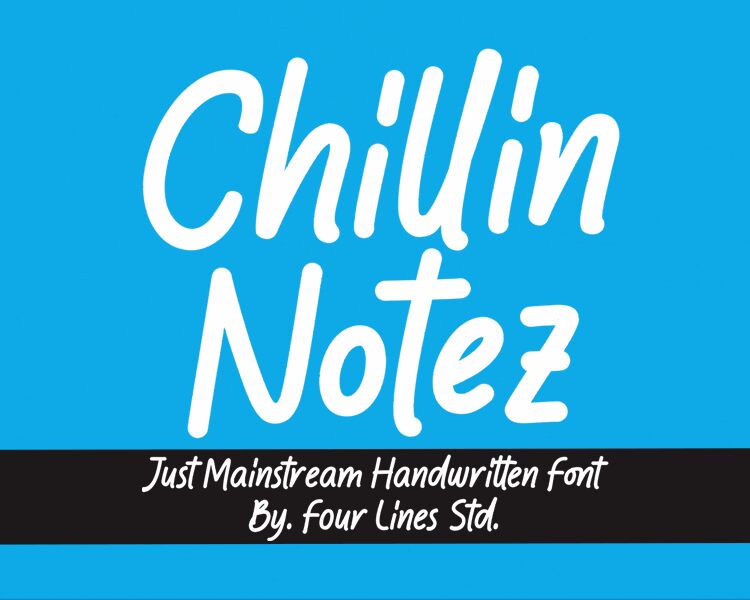
Chillin Notez font is a handwriting typeface designed by Four Lines. Its casual handwriting style and whimsical appearance naturally relate to modern-day audiences. Letters here may be regular in terms of width, but their thick weight gives them defined shapes and serious attention. Despite having its friendly look that comes off as immediate and easy-going, multiple visual effects are clearly visible within the characters.